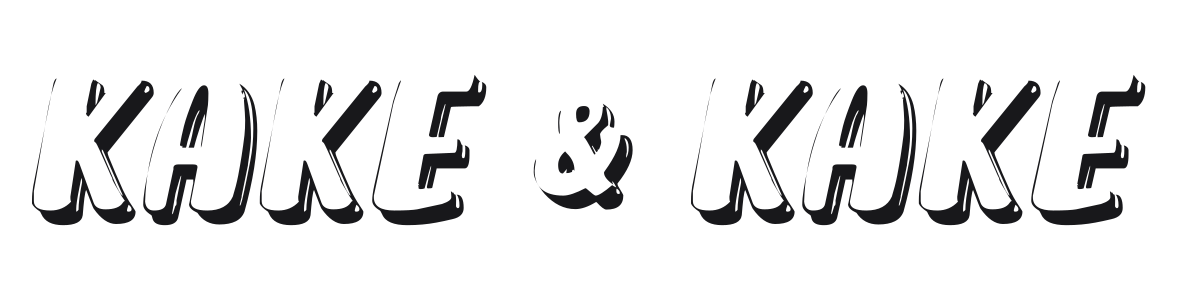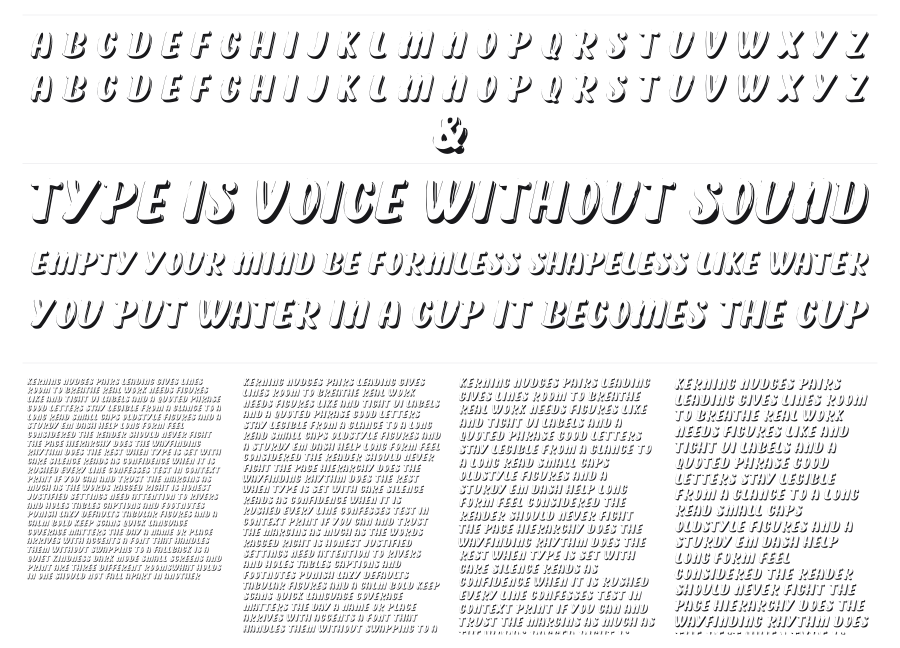
Kake & Kake
Kake & Kake is a bold retro display font with a strong italic lean and a built-in inline shadow that gives each letter a punchy three-dimensional look. The chunky rounded construction pulls from mid-century American signage and diner culture, landing somewhere between a roadside billboard and a vintage record sleeve. It ships in regular and italic versions with OpenType SVG support.